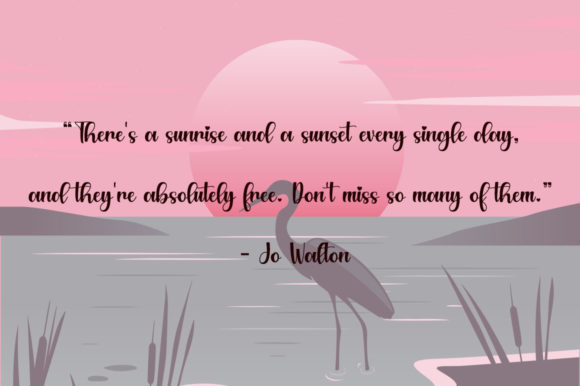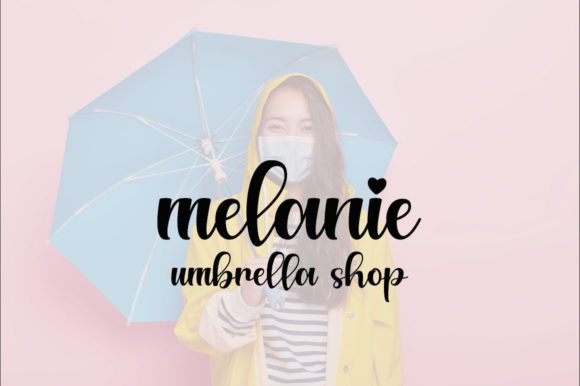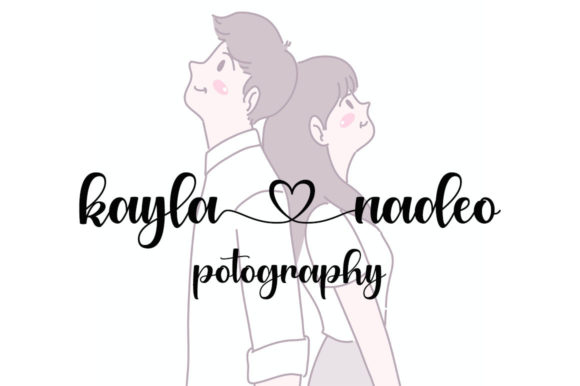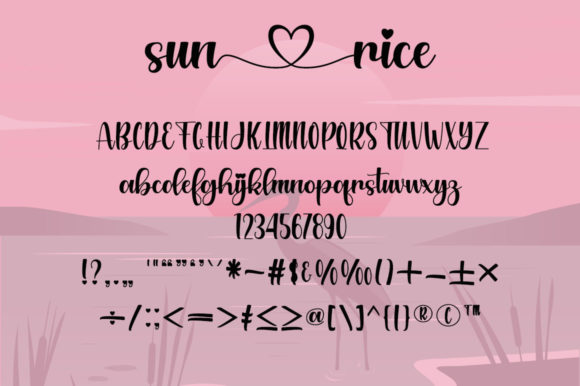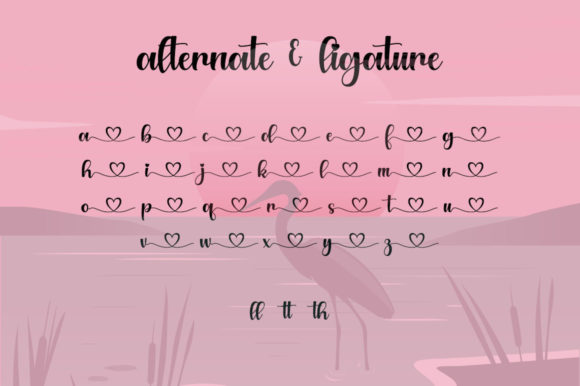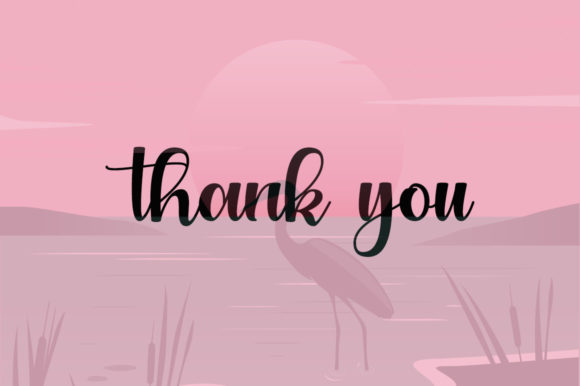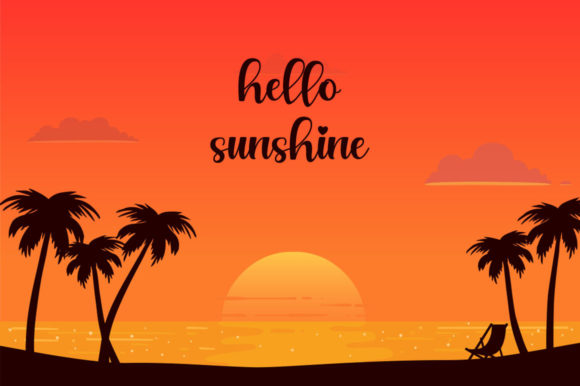
Sunrice Font
About Sunrice Font
Sunrice is a romantic and sweet calligraphy typeface with characters that dance along the baseline. It will add a luxury spark to any design project that you wish to create! This font is PUA encoded which means you can access all of the amazing glyphs and ligatures with ease!